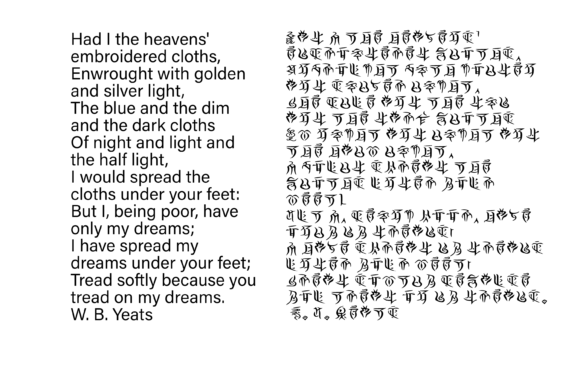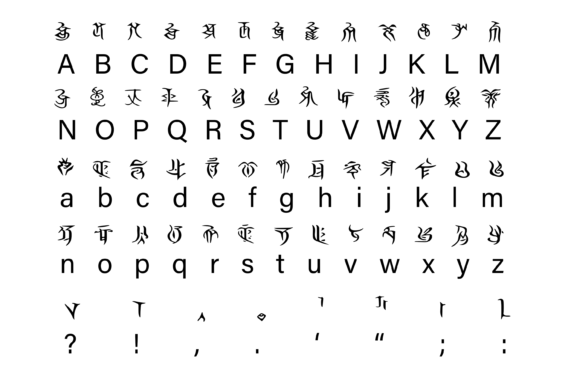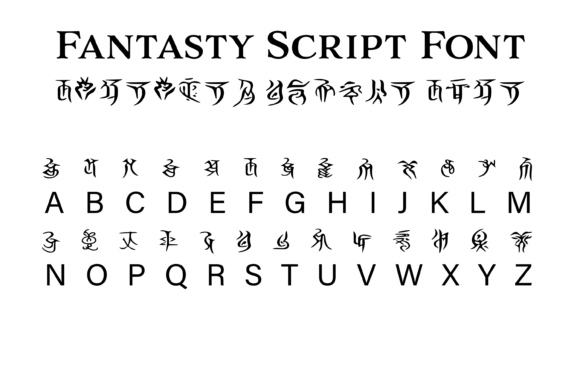
Fantasy Script 9 Font: The Perfect Addition to Your Fantasy World
Are you a designer, writer, or crafter looking to add a touch of magic to your next project? Look no further than the Fantasy Script 9 Font. This enchanting font is perfect for anyone working on a Dungeons and Dragons campaign, fantasy LARP adventure, novel, or any other creative endeavor that requires a dash of fantasy flair.
What is Fantasy Script 9 Font?
Fantasy Script 9 Font is a unique and captivating typeface designed to transport your audience to a world of wonder and adventure. This font includes the standard English alphabet and basic punctuation, making it easy to use for a variety of applications. Whether you’re creating invitations, posters, or entire manuscripts, Fantasy Script 9 Font is the perfect choice.
- Fantasy Flair: Add a touch of magic to your project with this enchanting font.
- Easy to Use: Includes the standard English alphabet and basic punctuation for seamless integration.
- Versatile: Suitable for a variety of applications, including Dungeons and Dragons campaigns, fantasy LARP adventures, novels, and more.
- High-Quality: Professionally designed to ensure crisp and clear rendering.
As a designer or crafter, you know how important it is to find the right font to bring your project to life. Fantasy Script 9 Font is the perfect addition to your toolkit, offering a unique and captivating style that will set your work apart. Use it to:
- Create eye-catching invitations and promotional materials for your next event or campaign.
- Add a touch of fantasy flair to your novel or short story.
- Design stunning posters and flyers for your LARP adventure or gaming group.
- Enhance your brand and create a cohesive visual identity.
Tips for Using Fantasy Script 9 Font
To get the most out of Fantasy Script 9 Font, here are a few tips to keep in mind:
- Use it sparingly: While Fantasy Script 9 Font is beautiful, it can be overwhelming if used excessively. Use it to highlight key elements or add a touch of flair to your design.
- Pair it with a complementary font: Combine Fantasy Script 9 Font with a simpler font to create visual interest and hierarchy.
- Experiment with colors and textures: Add depth and dimension to your design by experimenting with different colors and textures.
Fantasy Script 9 Font is a powerful tool for designers, writers, and crafters looking to add a touch of magic to their projects. With its unique and captivating style, this font is perfect for anyone working on a fantasy-themed project. Whether you’re creating a Dungeons and Dragons campaign, novel, or LARP adventure, Fantasy Script 9 Font is the perfect addition to your toolkit.
In conclusion, Fantasy Script 9 Font is a versatile and captivating typeface that is sure to bring a touch of magic to your next project. With its ease of use, high-quality design, and fantasy flair, it’s the perfect choice for designers, writers, and crafters alike.